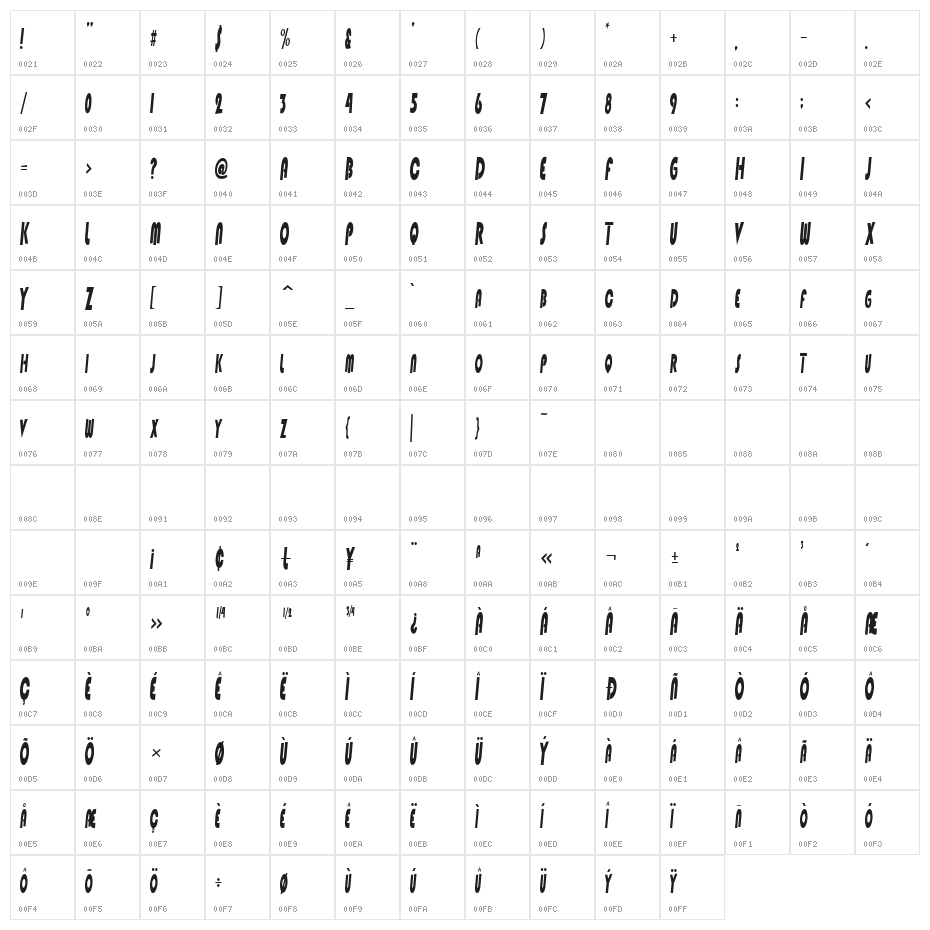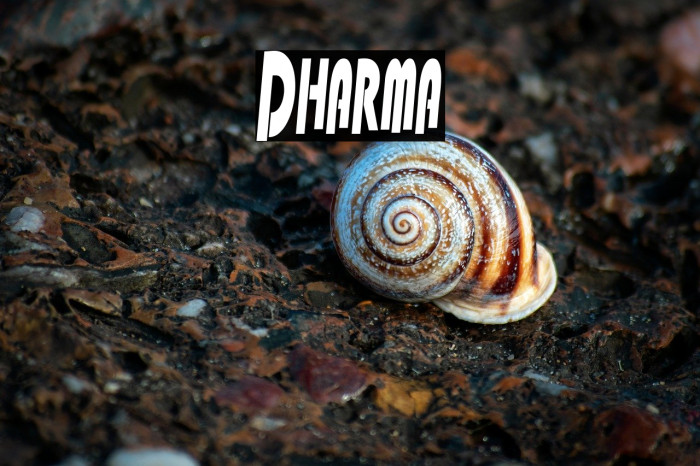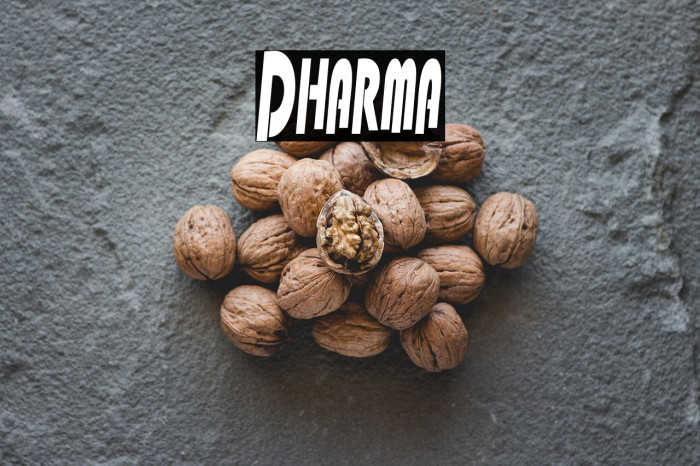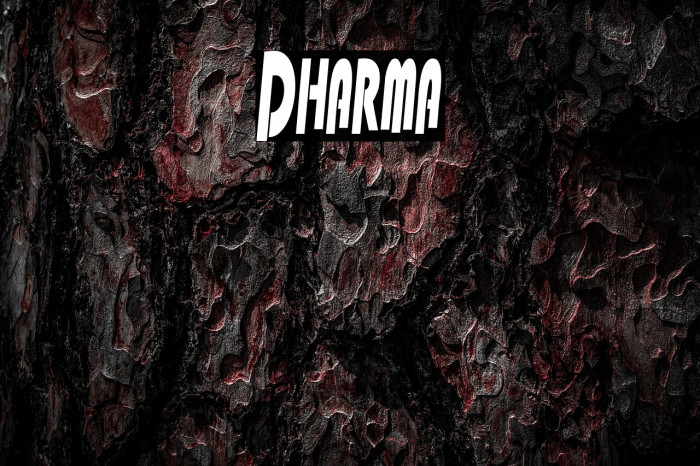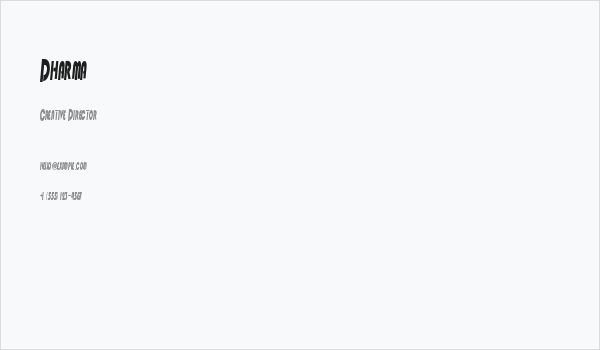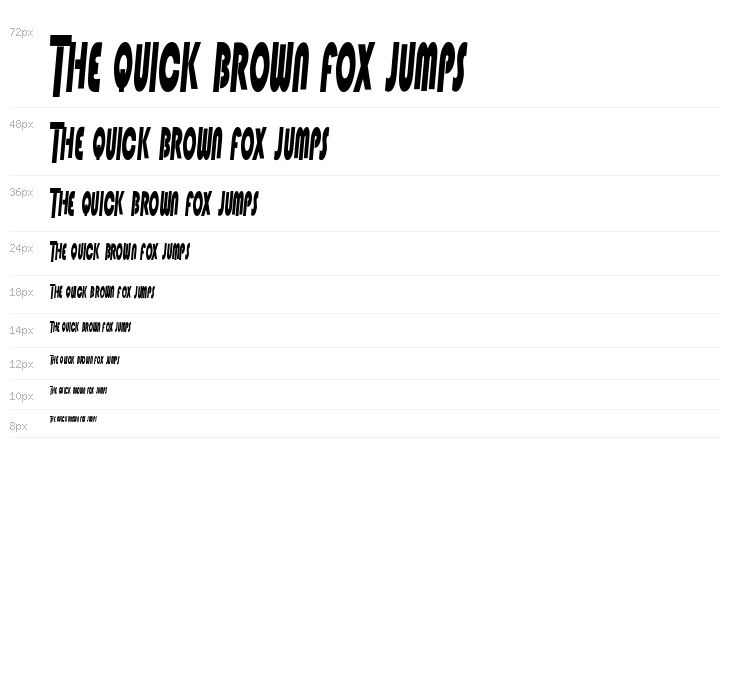
Dharma Font
Dharma Description
This font features a bold and dynamic style with a distinct slant, giving it a sense of motion and energy. The characters are thick and robust, with a slightly condensed form that enhances its impact. The uppercase letters are particularly striking, with a uniform height that creates a cohesive look. The lowercase letters maintain the same boldness, ensuring readability while adding a touch of playfulness. Numbers and special characters are designed to match the overall aesthetic, making them suitable for various applications. The font's unique style makes it ideal for projects that require a strong visual presence.
| Proposed Projects | Ideal for posters, headlines, branding, and advertising materials that need a strong visual impact. |